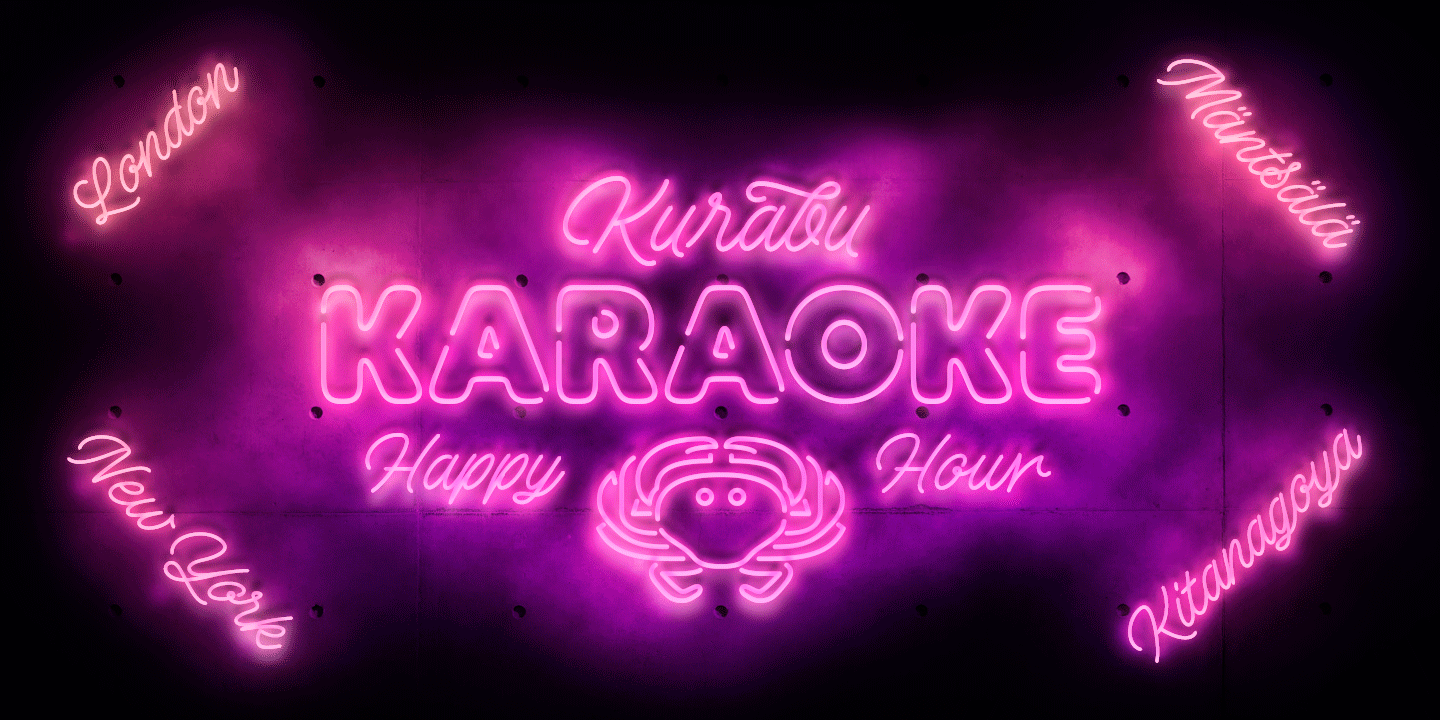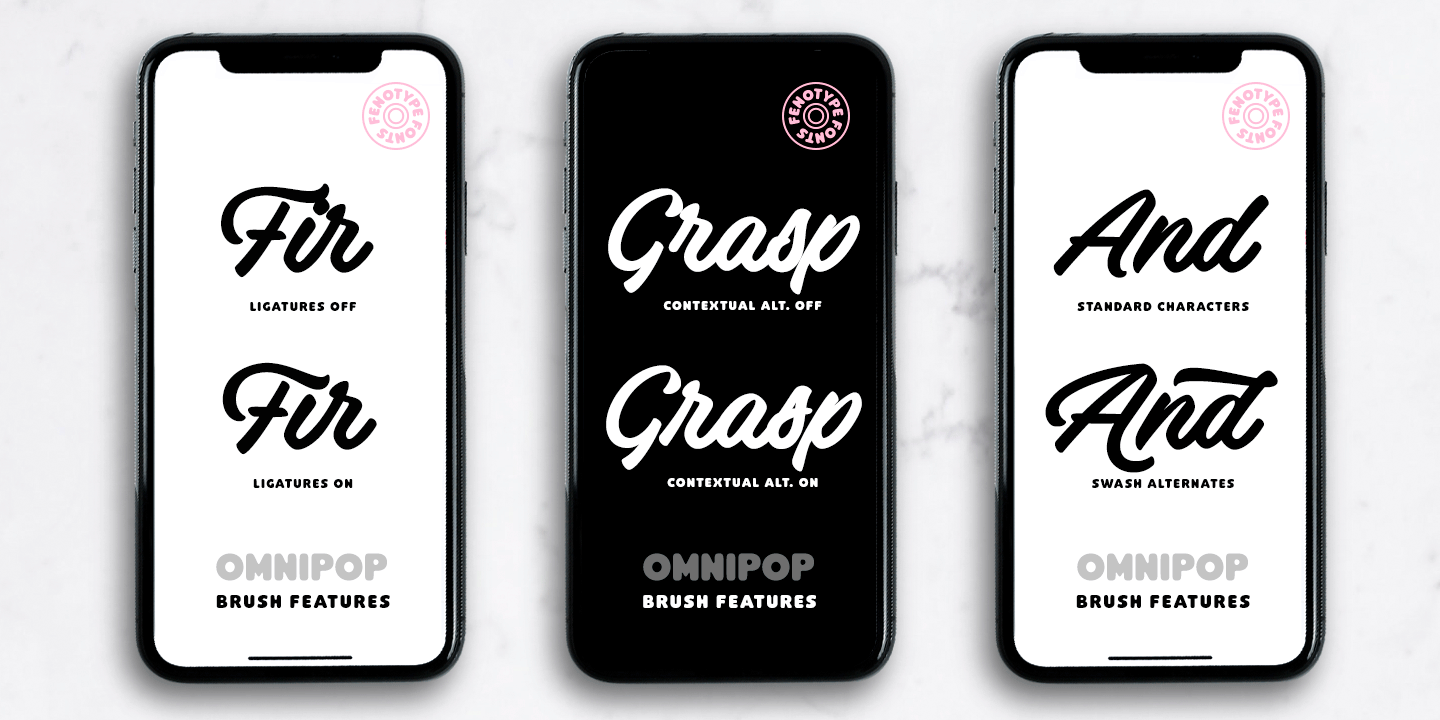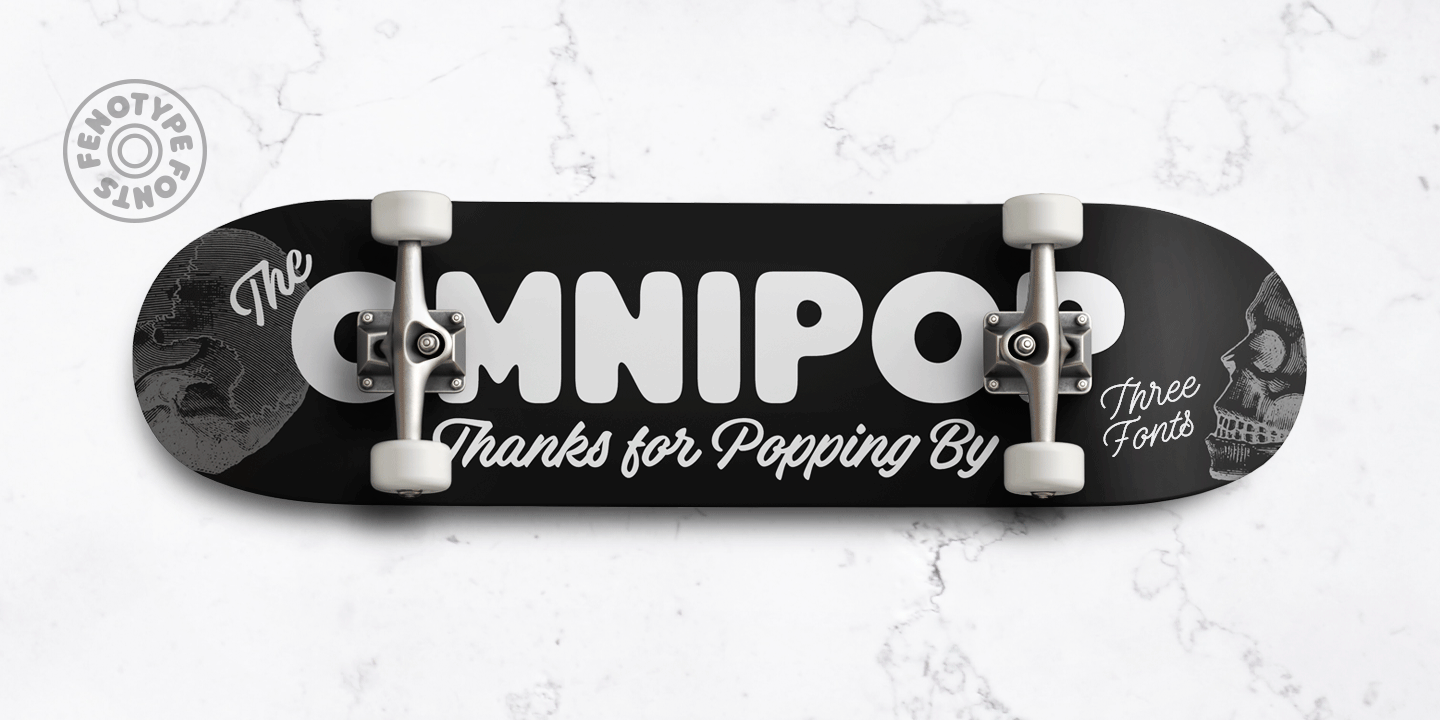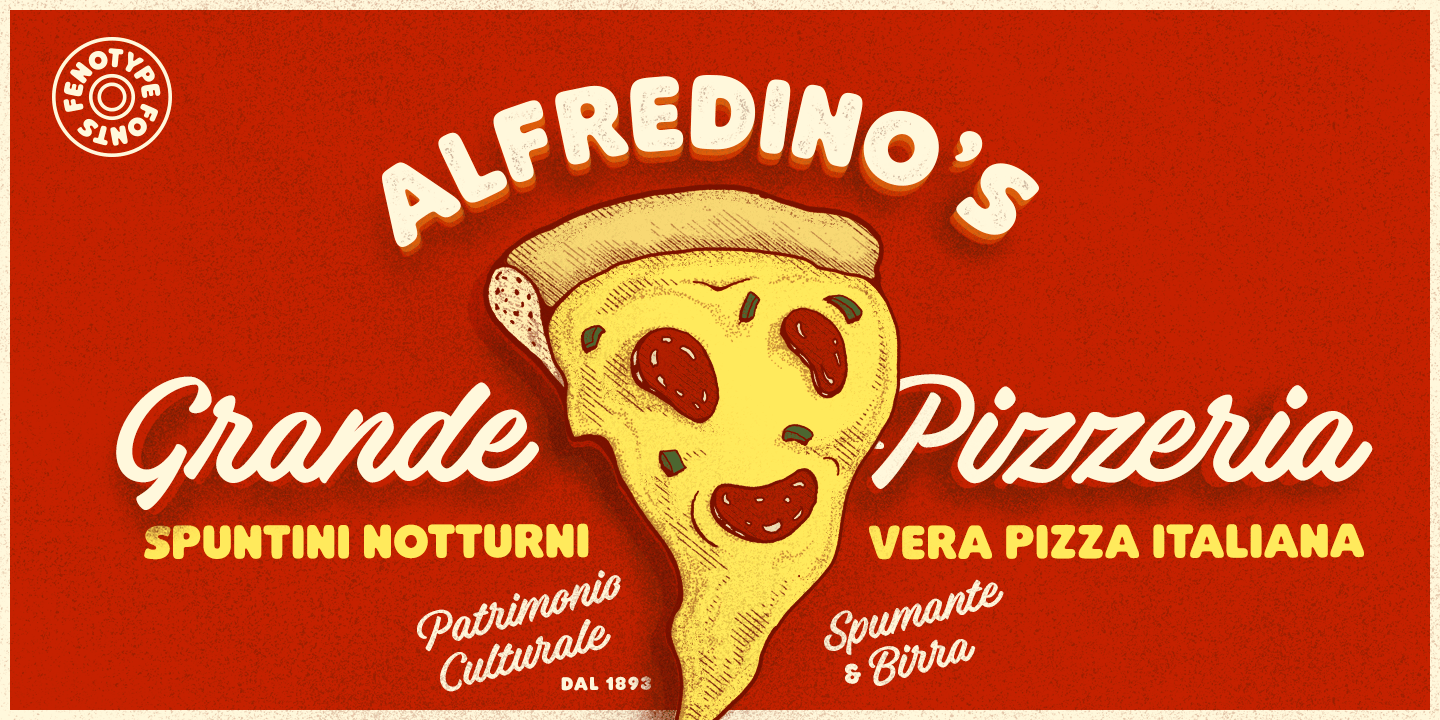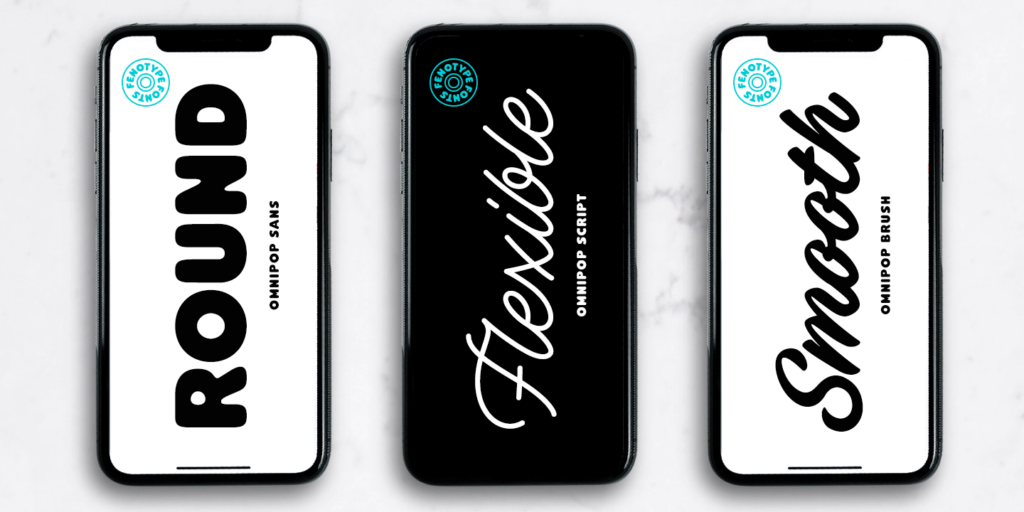
About Omnipop
Omnipop is a potent display pack with three styles. All the fonts have firm yet clean and velvety character. Omnipop Brush is a forward leaning brush script with a somewhat heavy complexion. It has a large x-height and it makes nice smooth and even texts.…